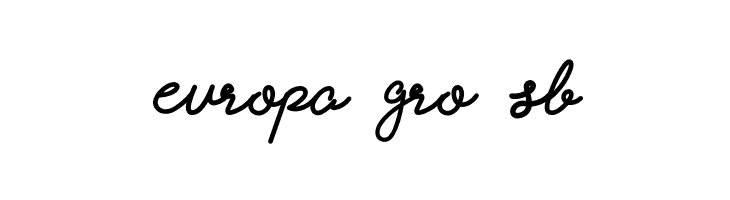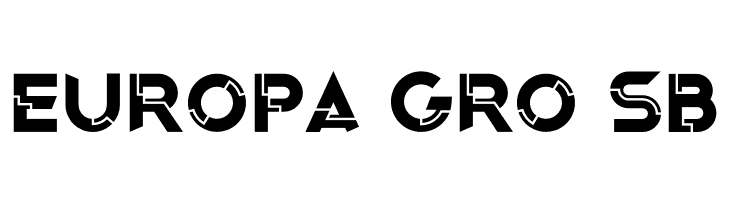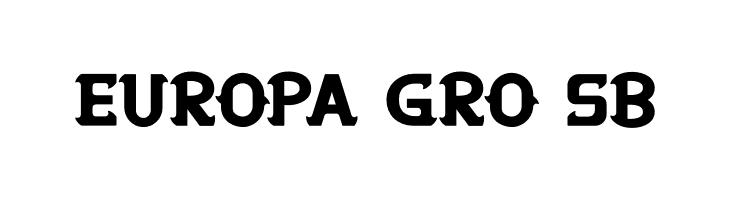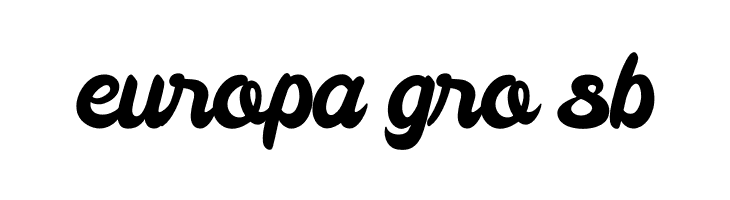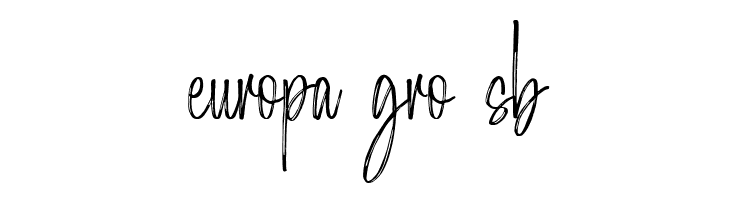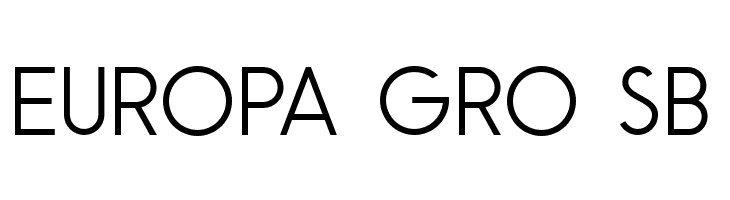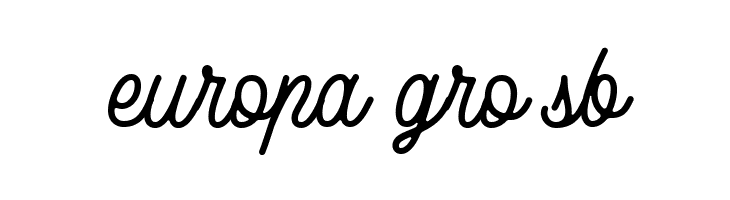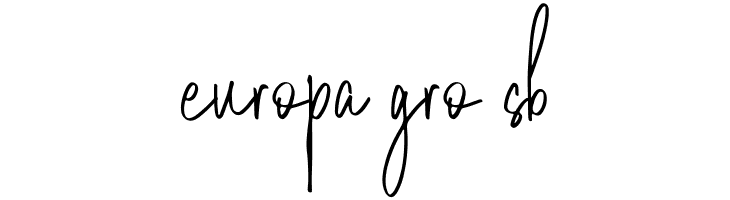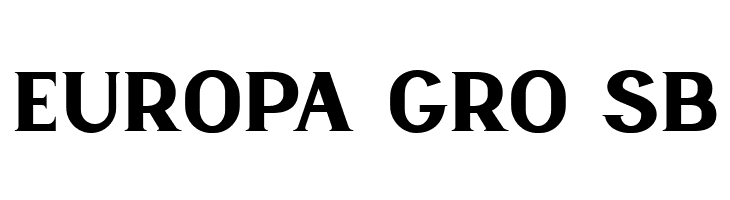
A fluid and elegant script font with a handwritten charm.
A bold, futuristic font with geometric and tech-inspired elements.
A bold, angular serif font with a modern and striking design.
A bold, flowing script font with elegant curves and ornate flourishes.
A playful, artistic handwritten font with elegant, narrow forms and whimsical strokes.
A modern, clean sans-serif font with excellent legibility.
A flowing, cursive font with elegant, looping strokes and a playful style.
A dynamic and expressive handwritten font with fluid, cursive strokes.
A flowing, cursive handwritten font with elegant connections and smooth strokes.
A bold, classic serif font with strong strokes and pronounced serifs.